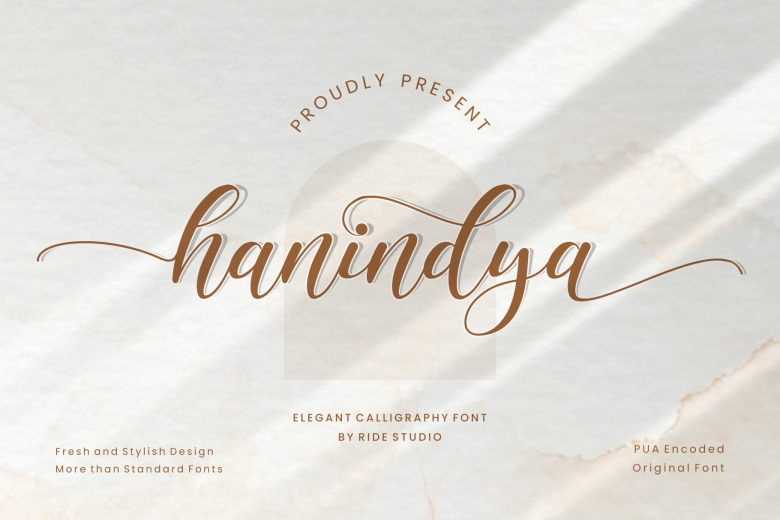
Hanindya Font
Hanindya is a stylish, elegant and smooth handwritten icon fonts. It is a character that conveys elegance and balance and makes any lettering, invitation or even decoration design combine. There is also Logo designs, Business card, Book Titles, Company Names, Branding, etc.
Hanindya Calligraphy Script Font